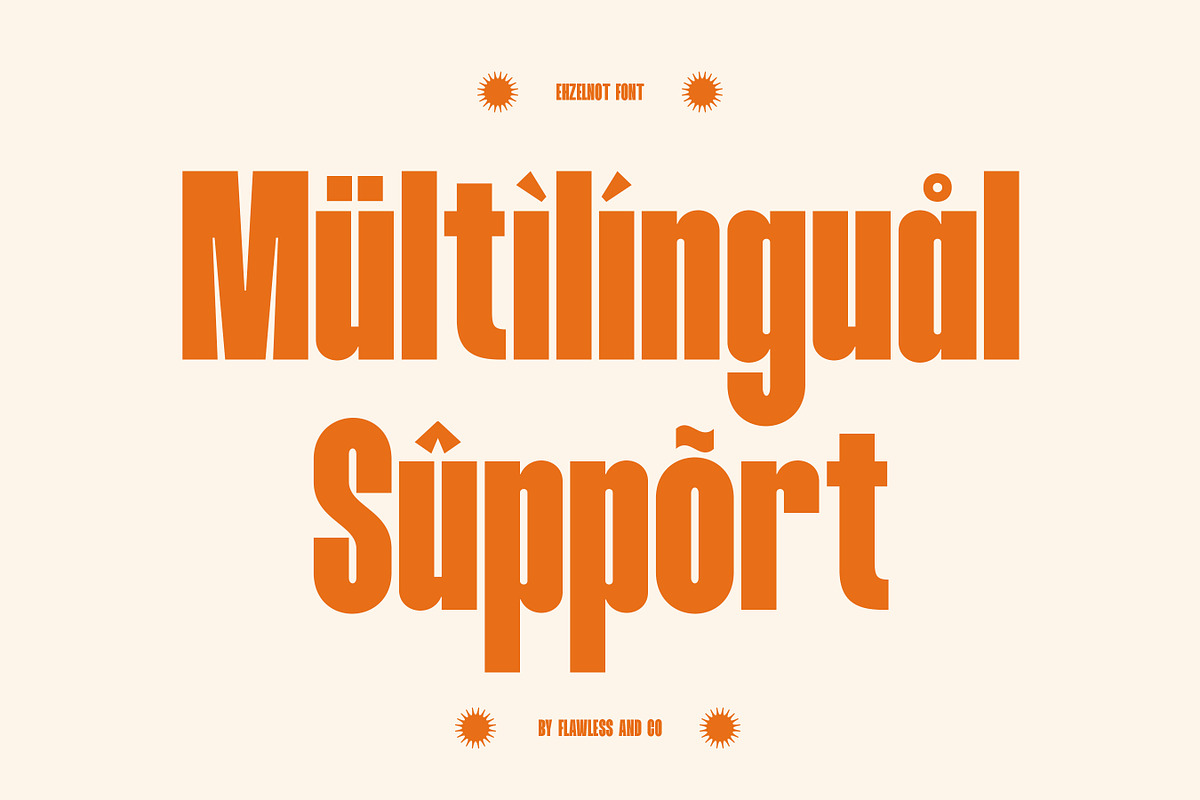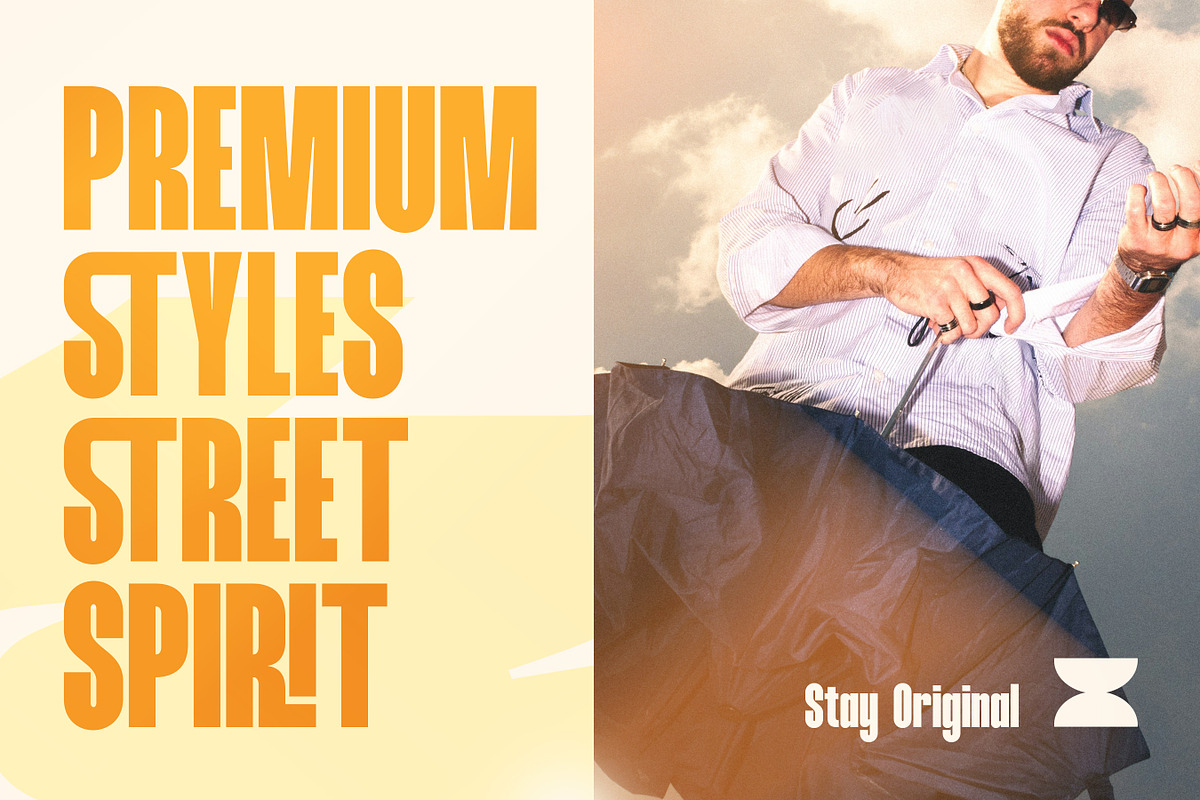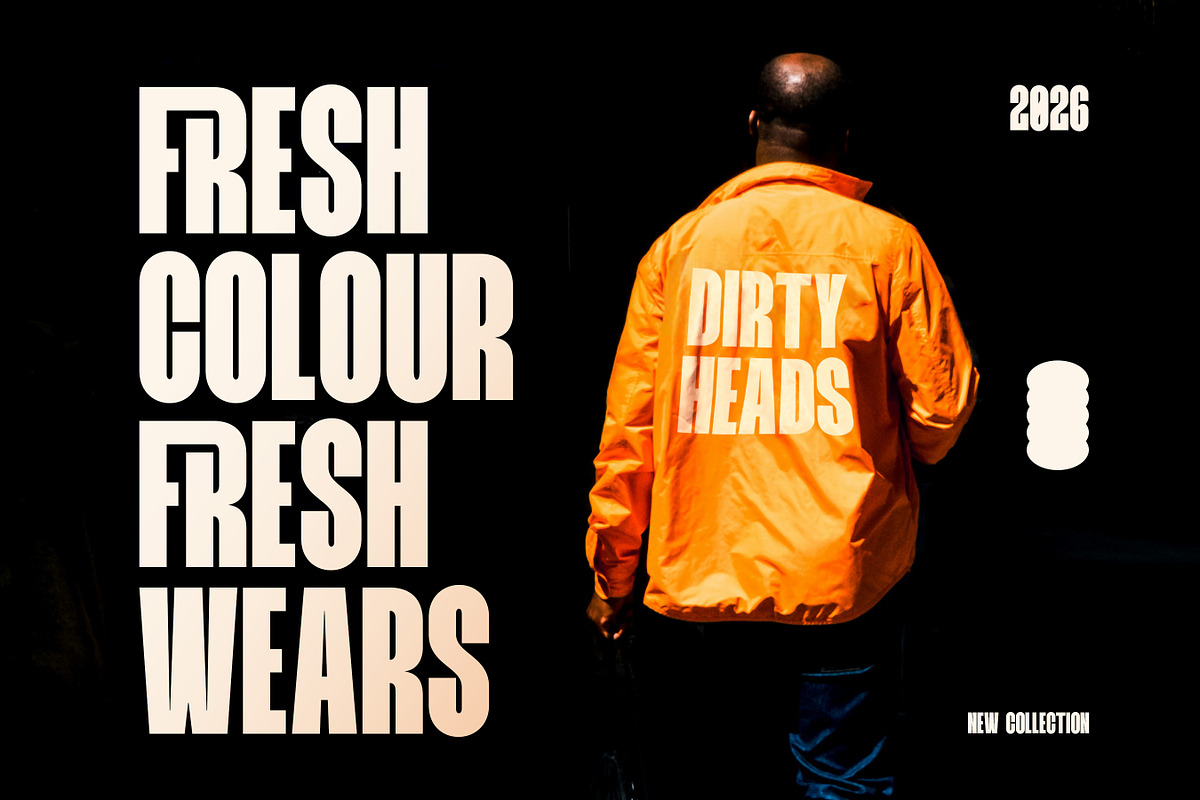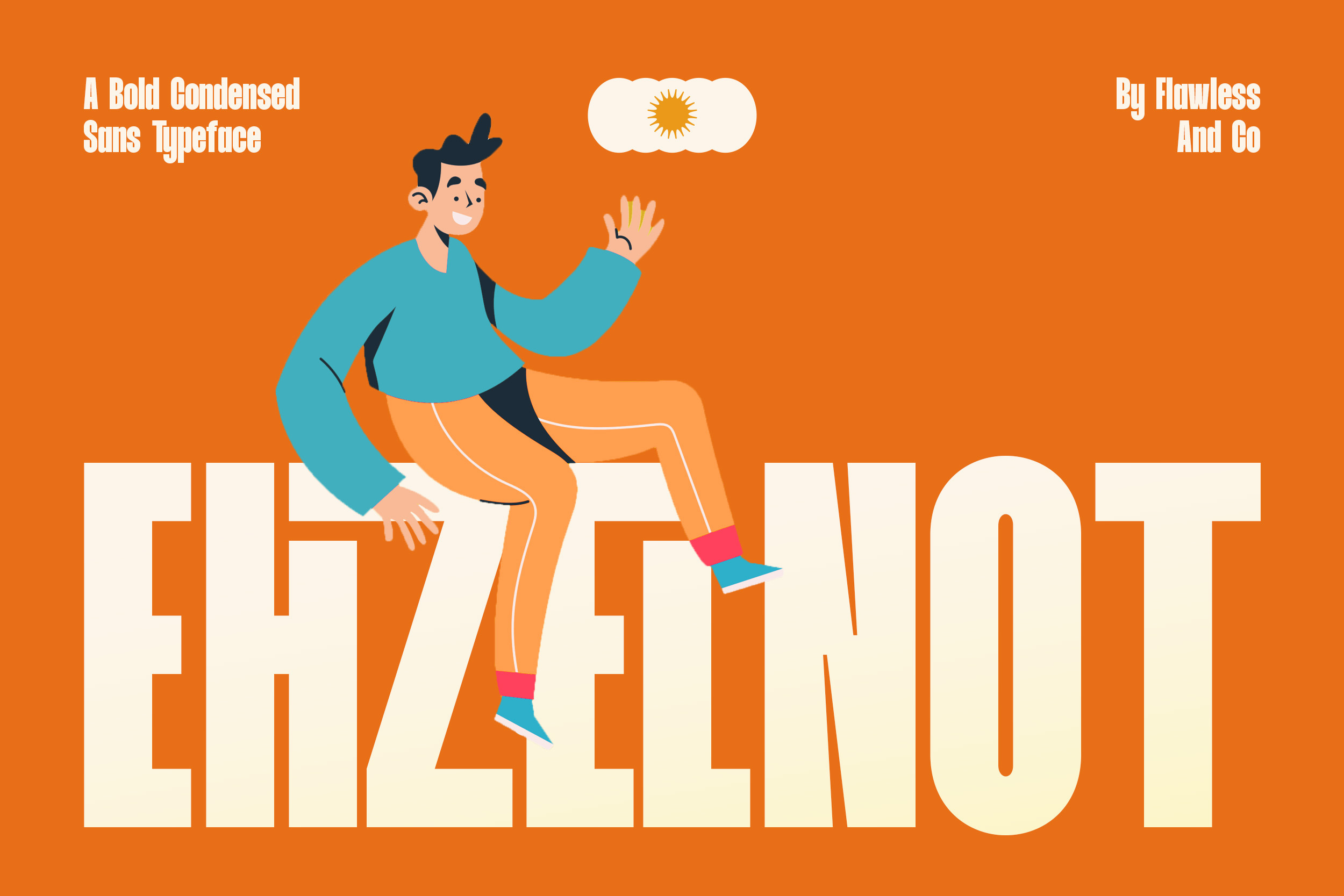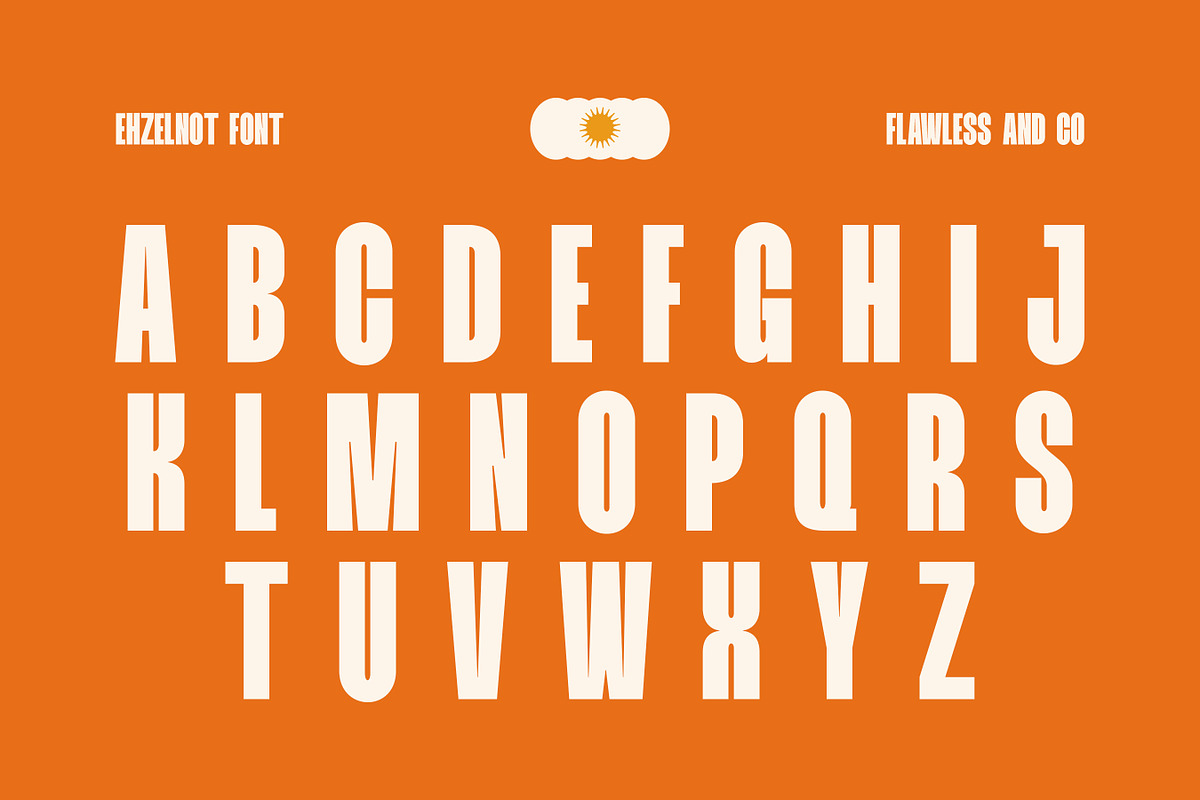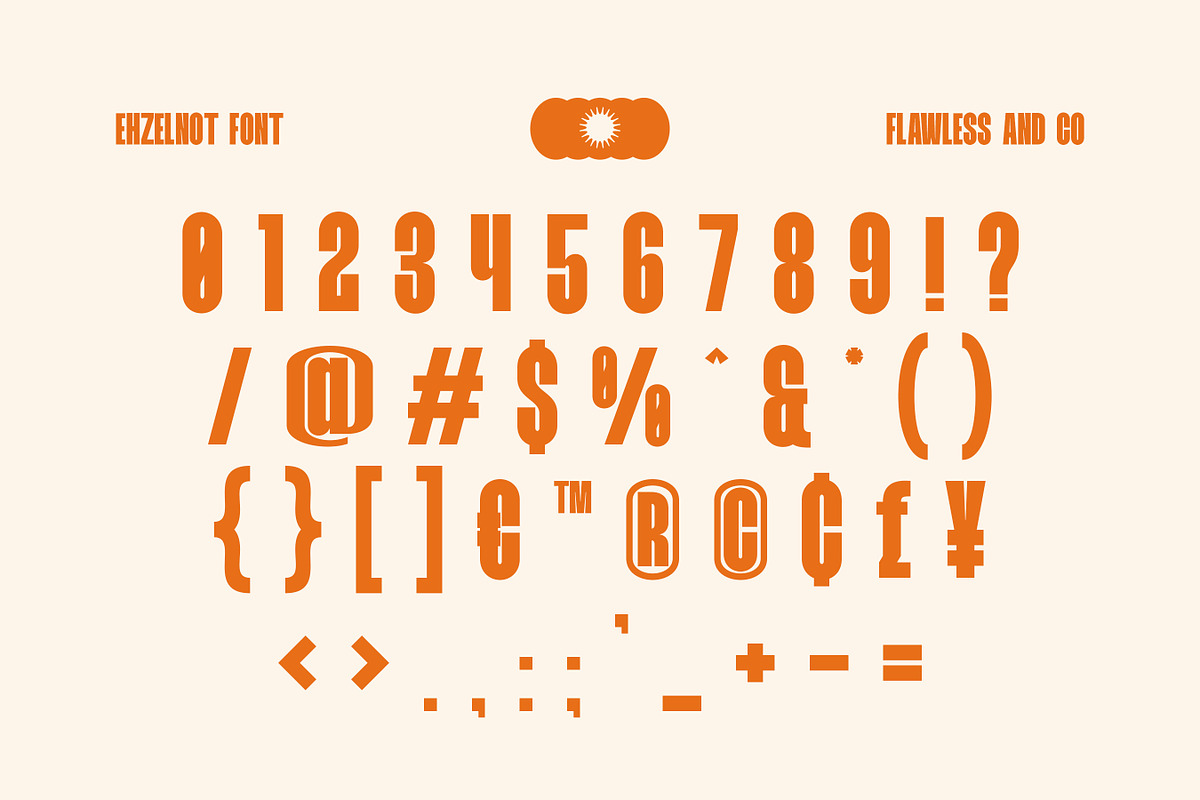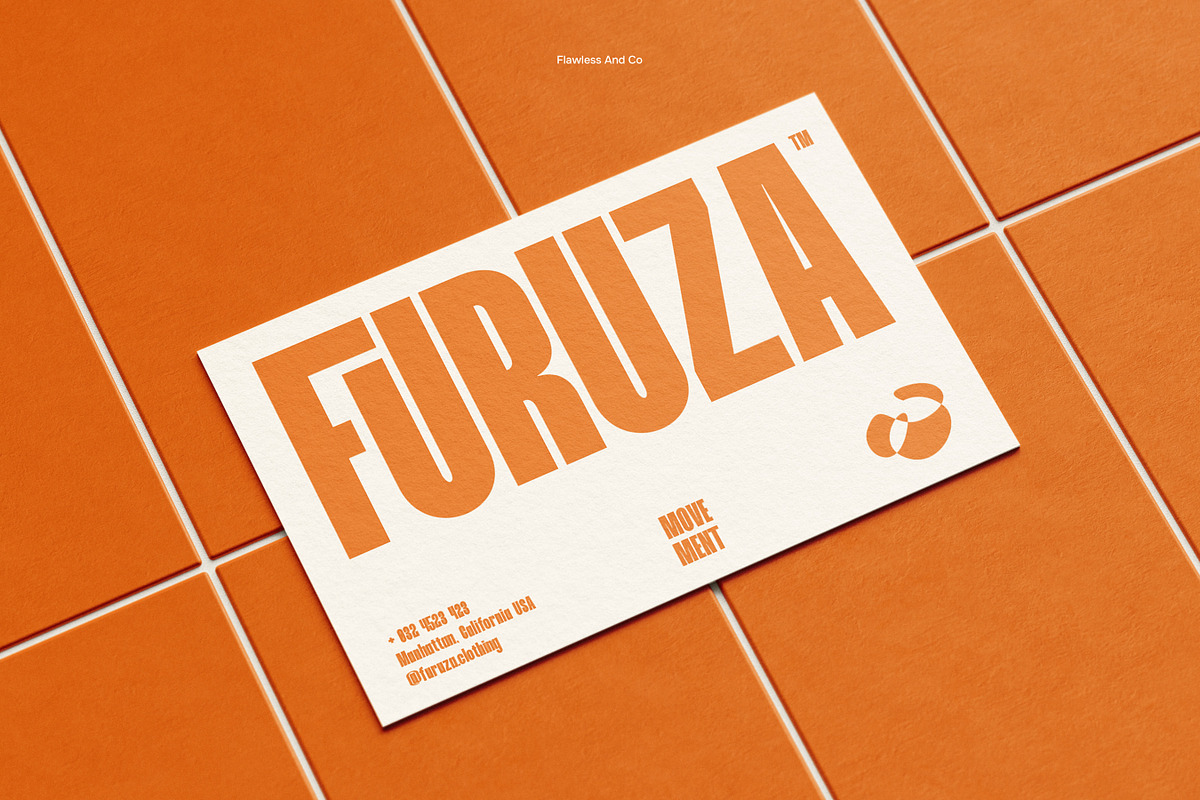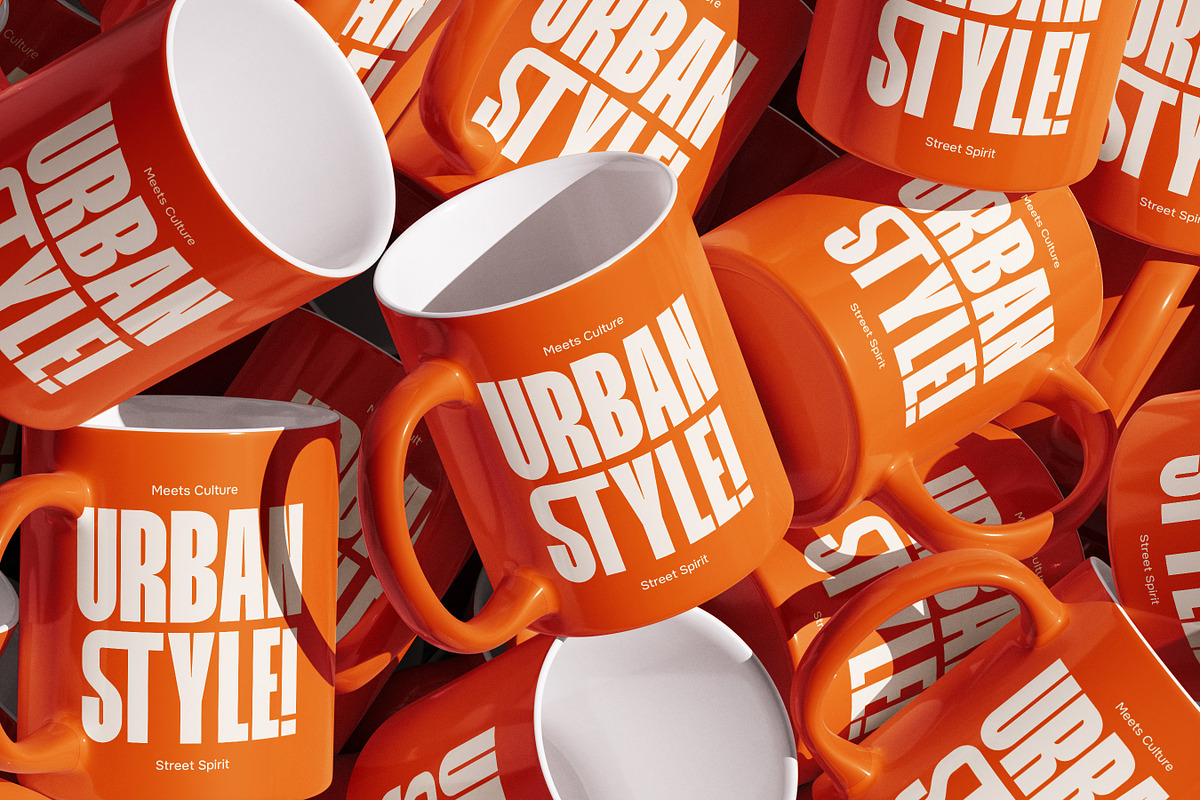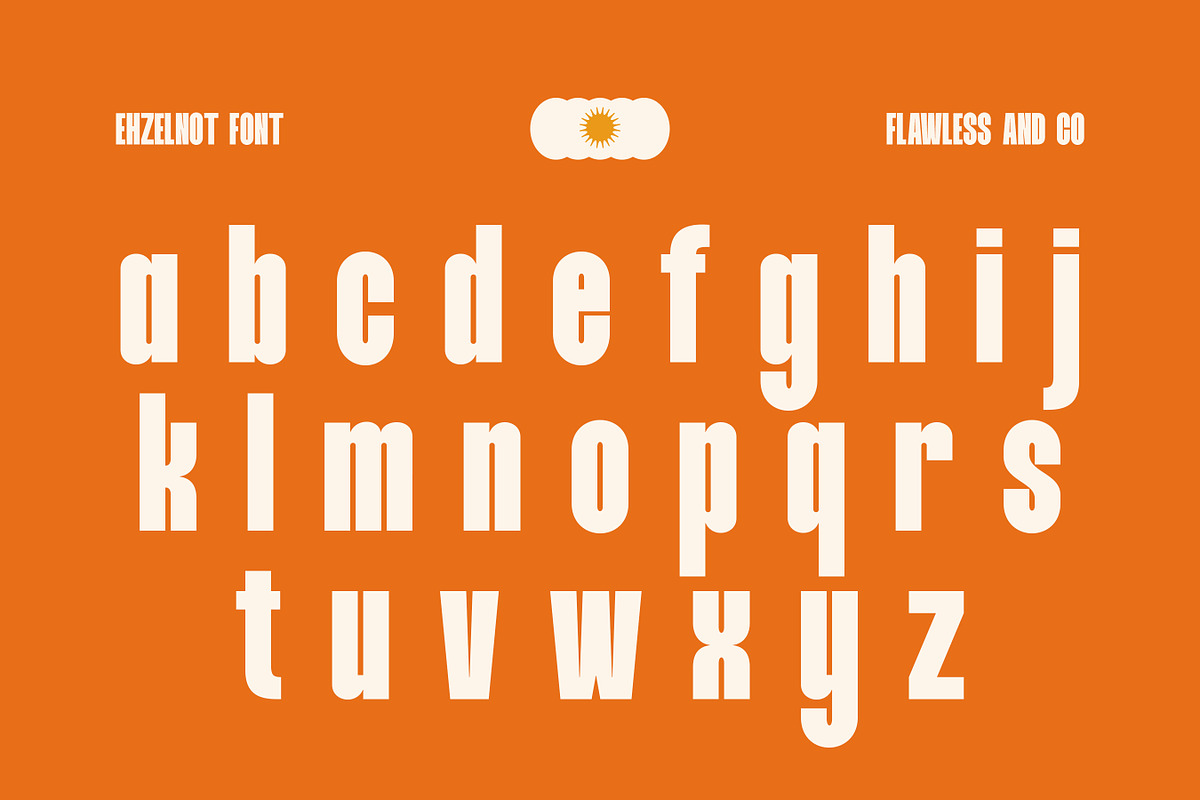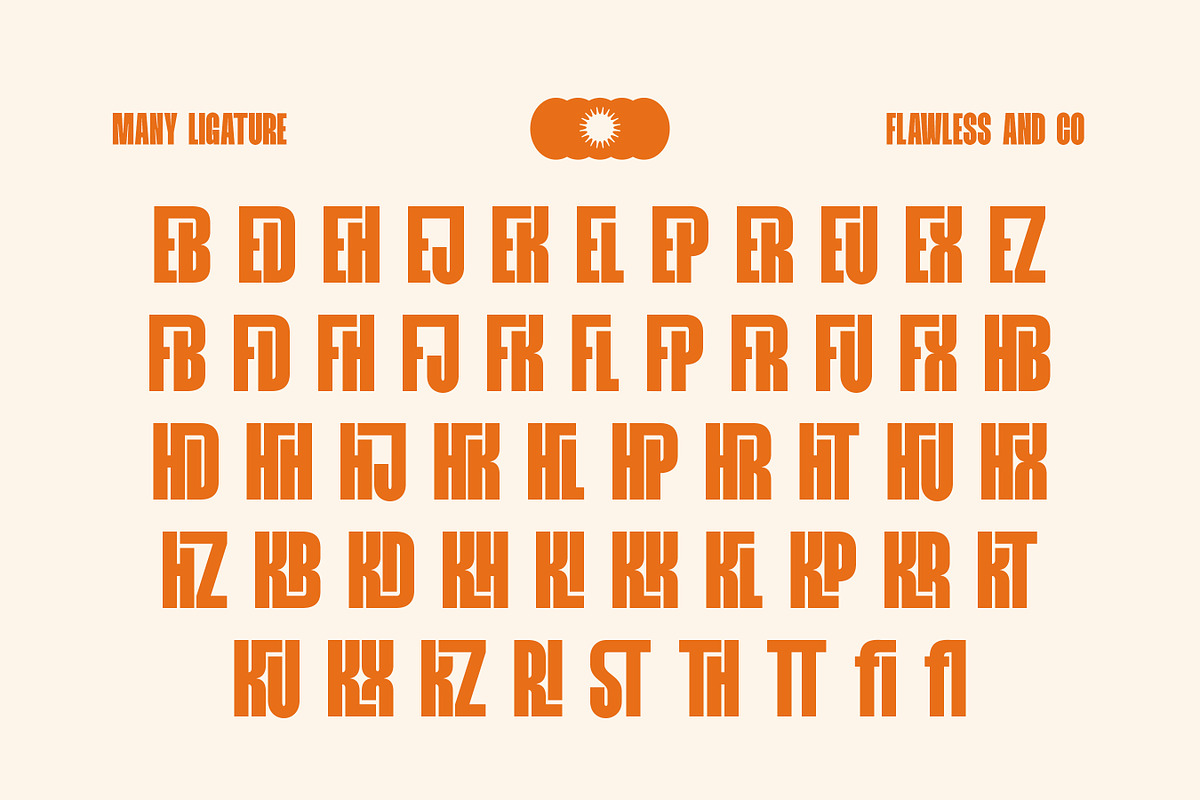
Ehzelnot - Bold Condensed Sans Font
Ehzelnot is a bold condensed display font created for designs that demand a strong, striking, and modern typographic presence. Its tall and compact letterforms create a powerful visual rhythm, allowing headlines and short phrases to stand out while keeping the overall composition clean and impactful.
With its bold structure and condensed proportions, Ehzelnot brings a confident and energetic personality to every design. The narrow width makes it ideal for maximizing space, while its strong forms give your typography the attention-grabbing quality needed for modern display projects.
Alternates & Ligatures
Who Should Use Ehzelnot?
Ehzelnot is perfect for graphic designers, branding studios, fashion brands, sports businesses, creative agencies, advertising designers, and entrepreneurs who need a bold and impactful condensed display font.
Suitable For:
Bold branding and logo design
Fashion and design graphics
Sports and athletic branding
Poster and headline design
Editorial and magazine covers
Advertising campaigns
Packaging and label design
Event and promotional artwork
Music and entertainment graphics
Modern typography projects